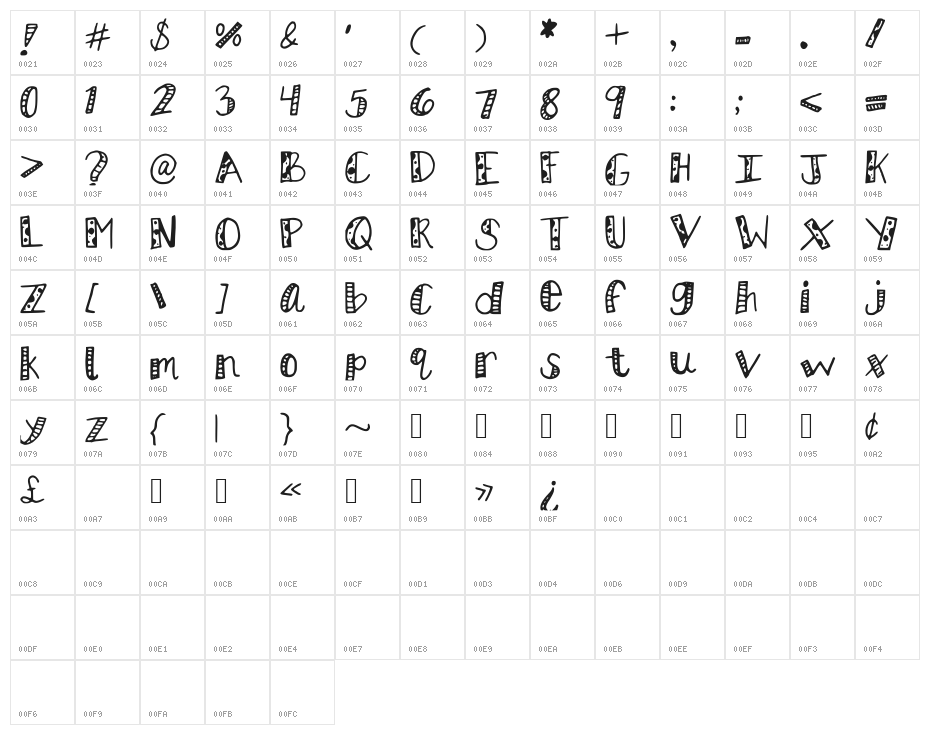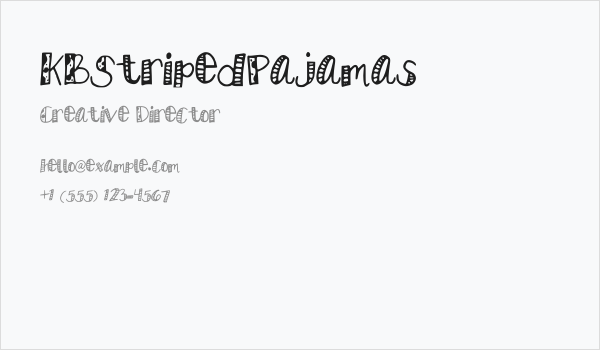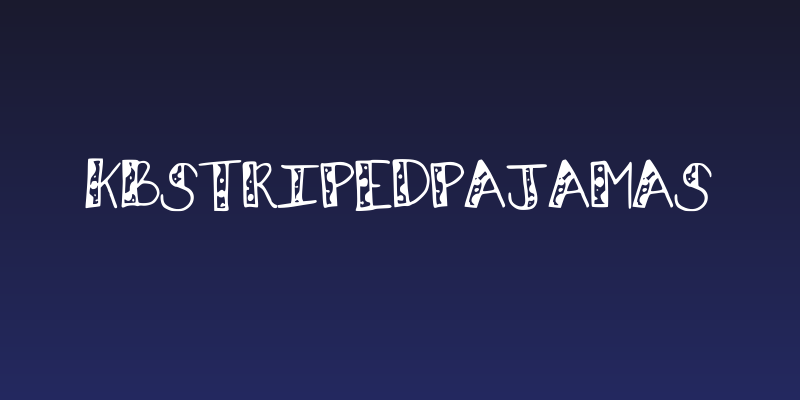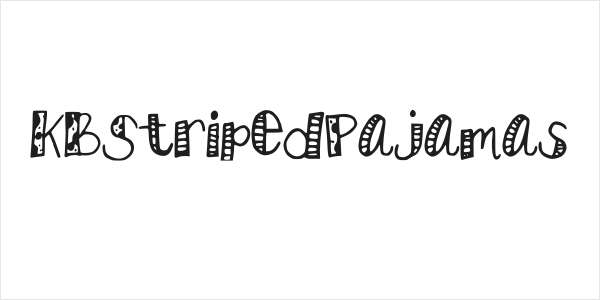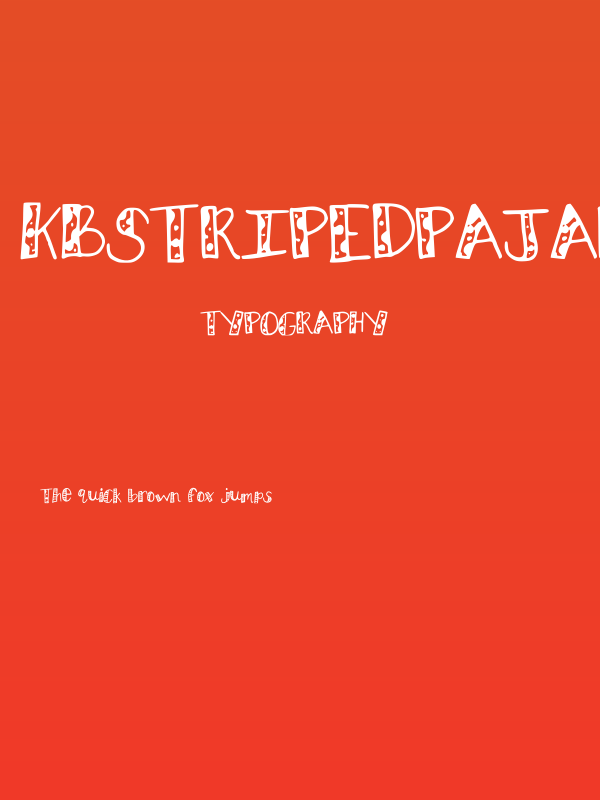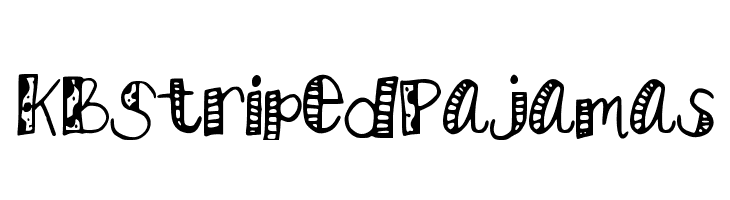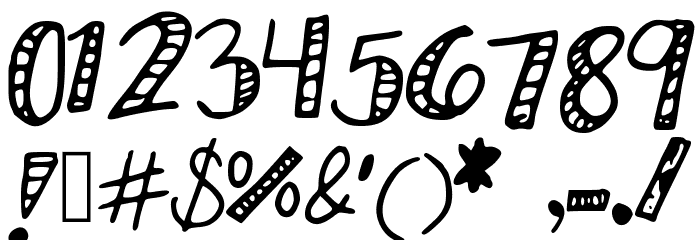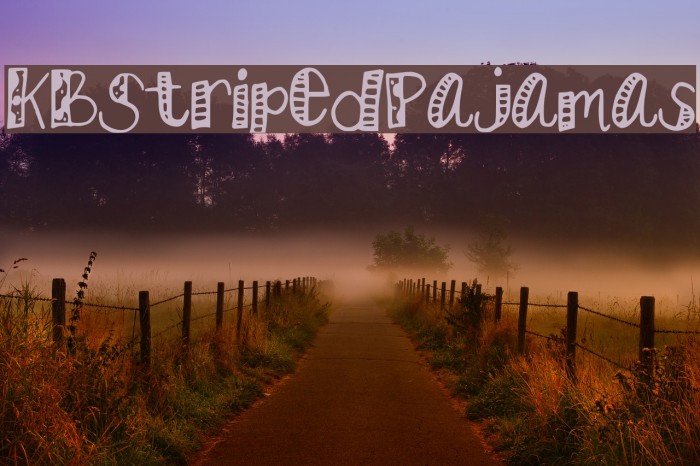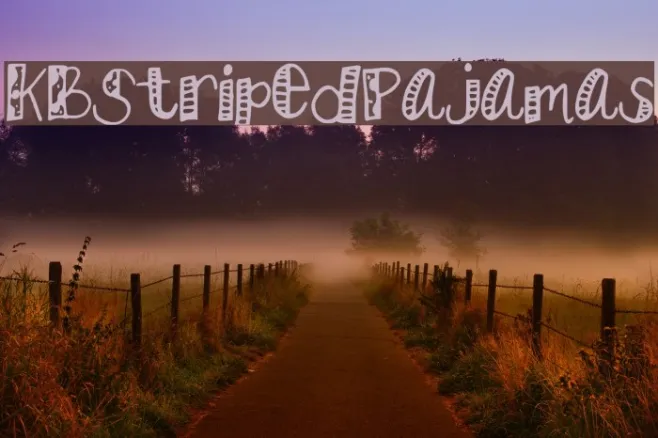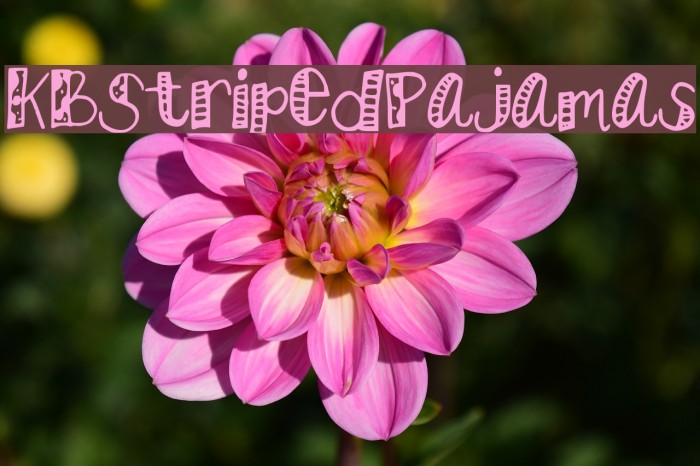
KBStripedPajamas Font
KBStripedPajamas Description
This playful and whimsical font features a unique striped pattern within each character, giving it a lively and dynamic appearance. The letters are bold and slightly irregular, adding a hand-drawn, casual feel. The uppercase and lowercase letters maintain a consistent style, with rounded edges and a slightly exaggerated form. Numbers and special characters are equally expressive, ensuring a cohesive look across all text. The font's distinct style makes it ideal for projects that require a fun and engaging visual element.
| Overall Style | Whimsical, Playful |
| Proposed Projects | Perfect for children's books, playful branding, party invitations, and creative posters. |